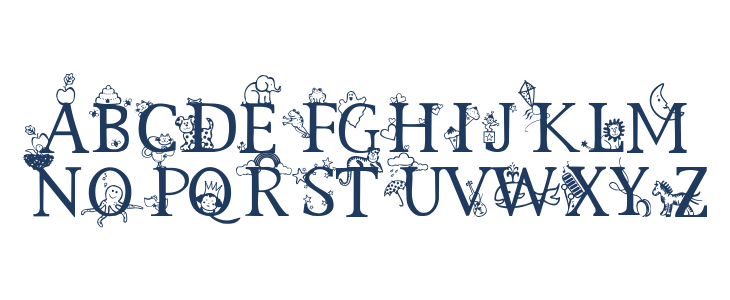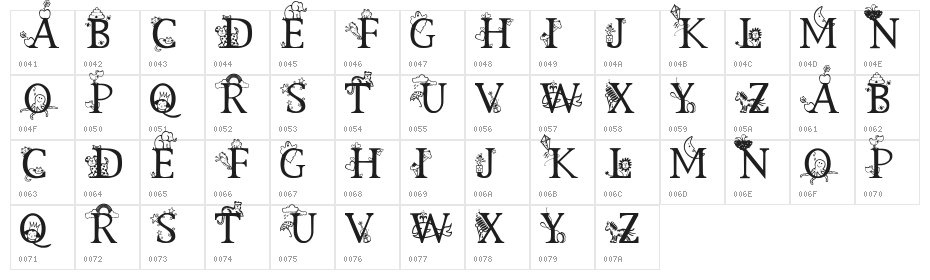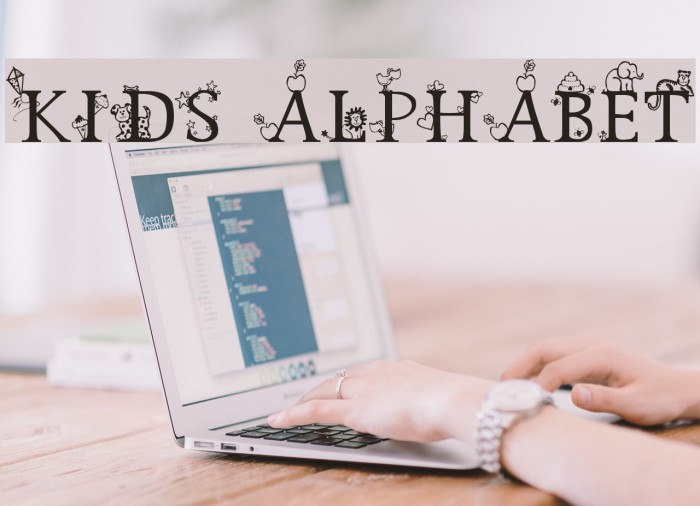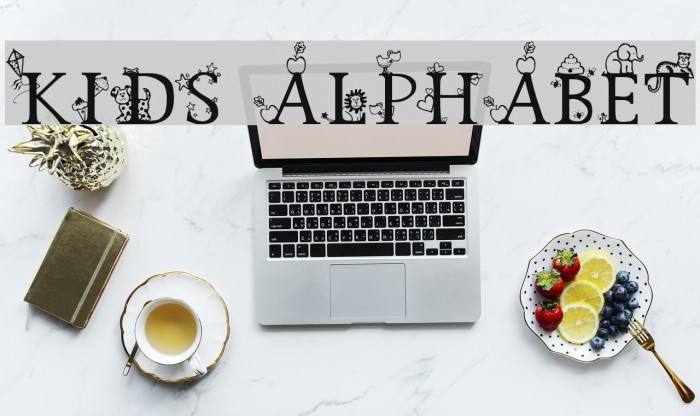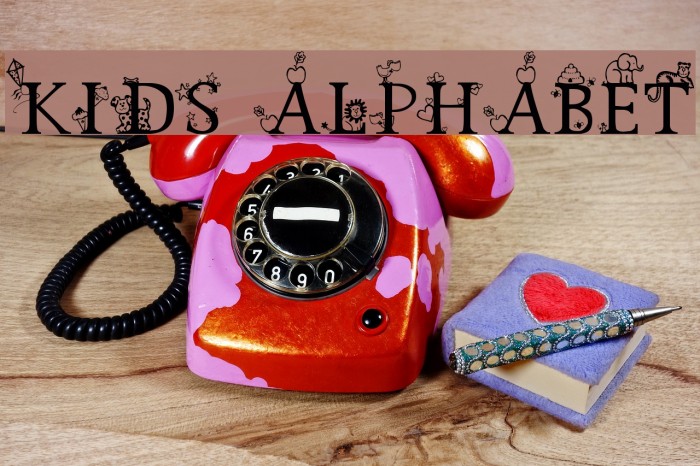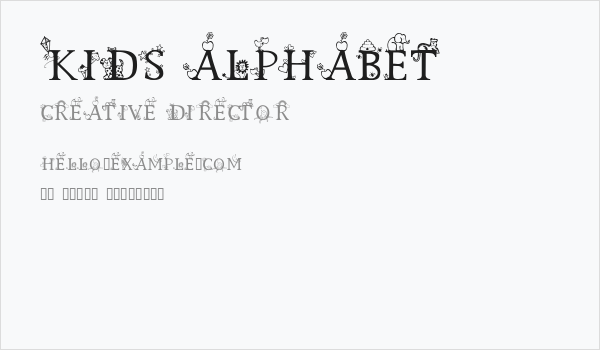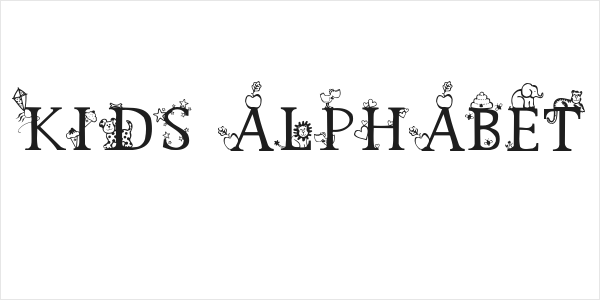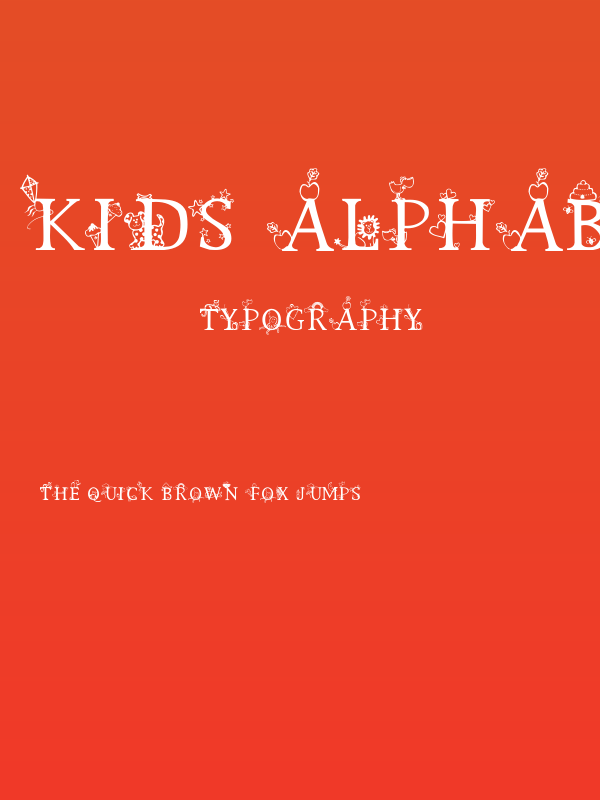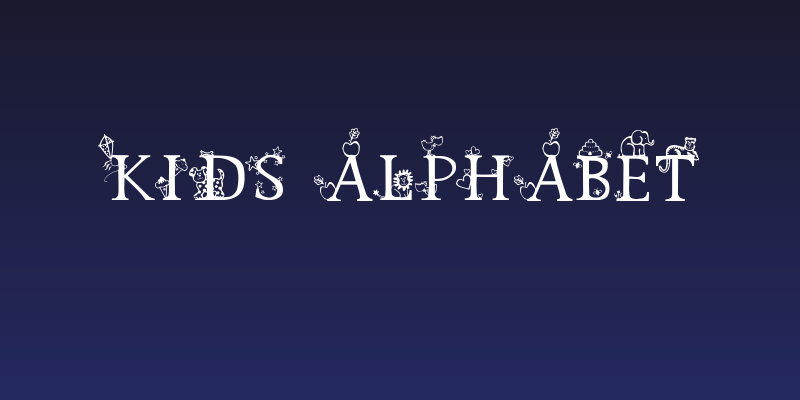
Kids Alphabet Font
Kids Alphabet Description
This playful and whimsical font features uppercase letters adorned with charming illustrations, making it perfect for children's projects. Each letter is uniquely decorated with elements like animals, clouds, and other playful motifs, adding a sense of fun and creativity. The font maintains a classic serif structure, ensuring readability while offering a decorative touch. The absence of lowercase letters and numbers suggests a focus on decorative and headline use. The overall design is engaging and imaginative, ideal for capturing the attention of young audiences.
| Use Case | Headlines, Decorative text |
| Proposed Projects | Ideal for children's books, educational materials, playful posters, and creative branding projects. |